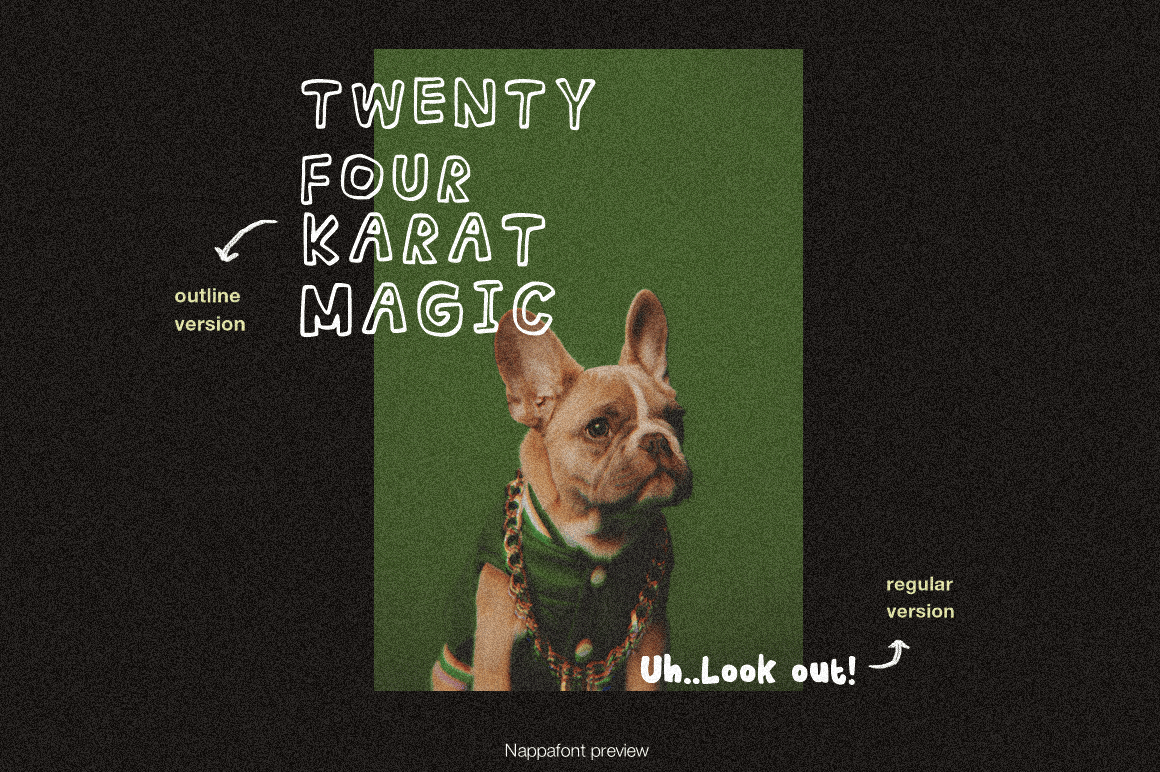
Nappa Font
Nappa Display Font
This is a playful display font perfect for titles, editorial design, packaging and any creative projects. It fits every graphic design or typography-related project that will give a natural touch with cool and messy style. There’s 2 version (regular and outline).